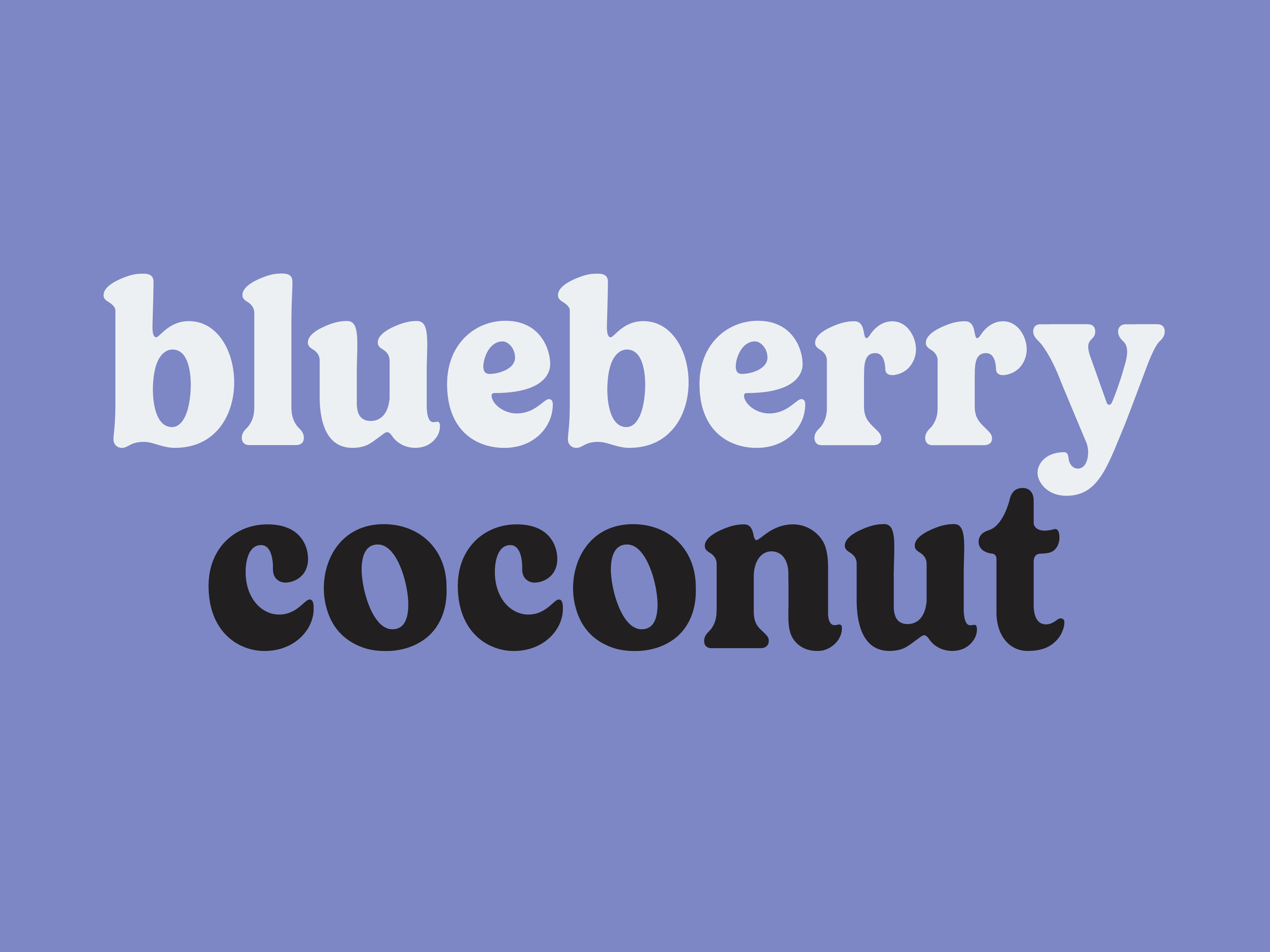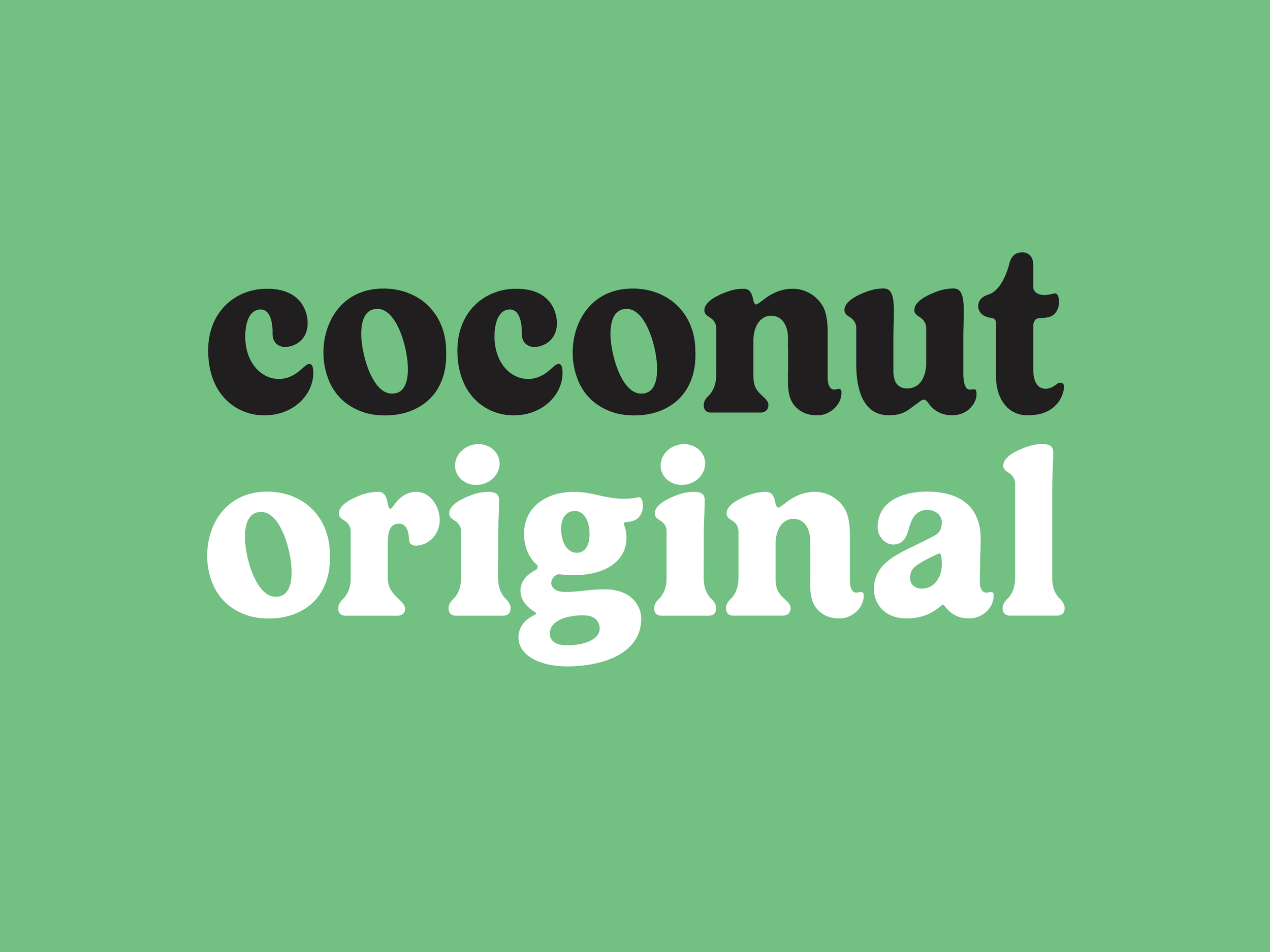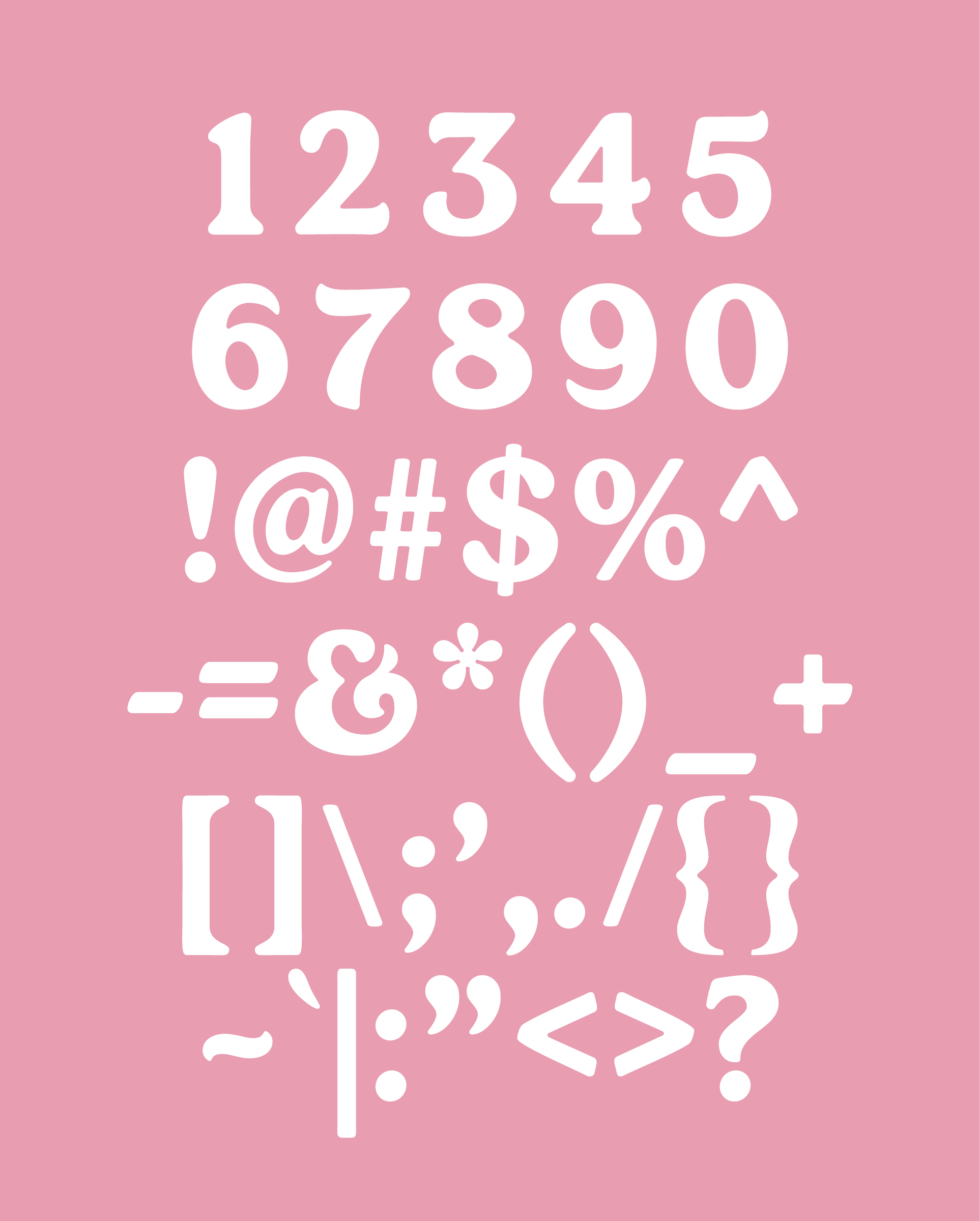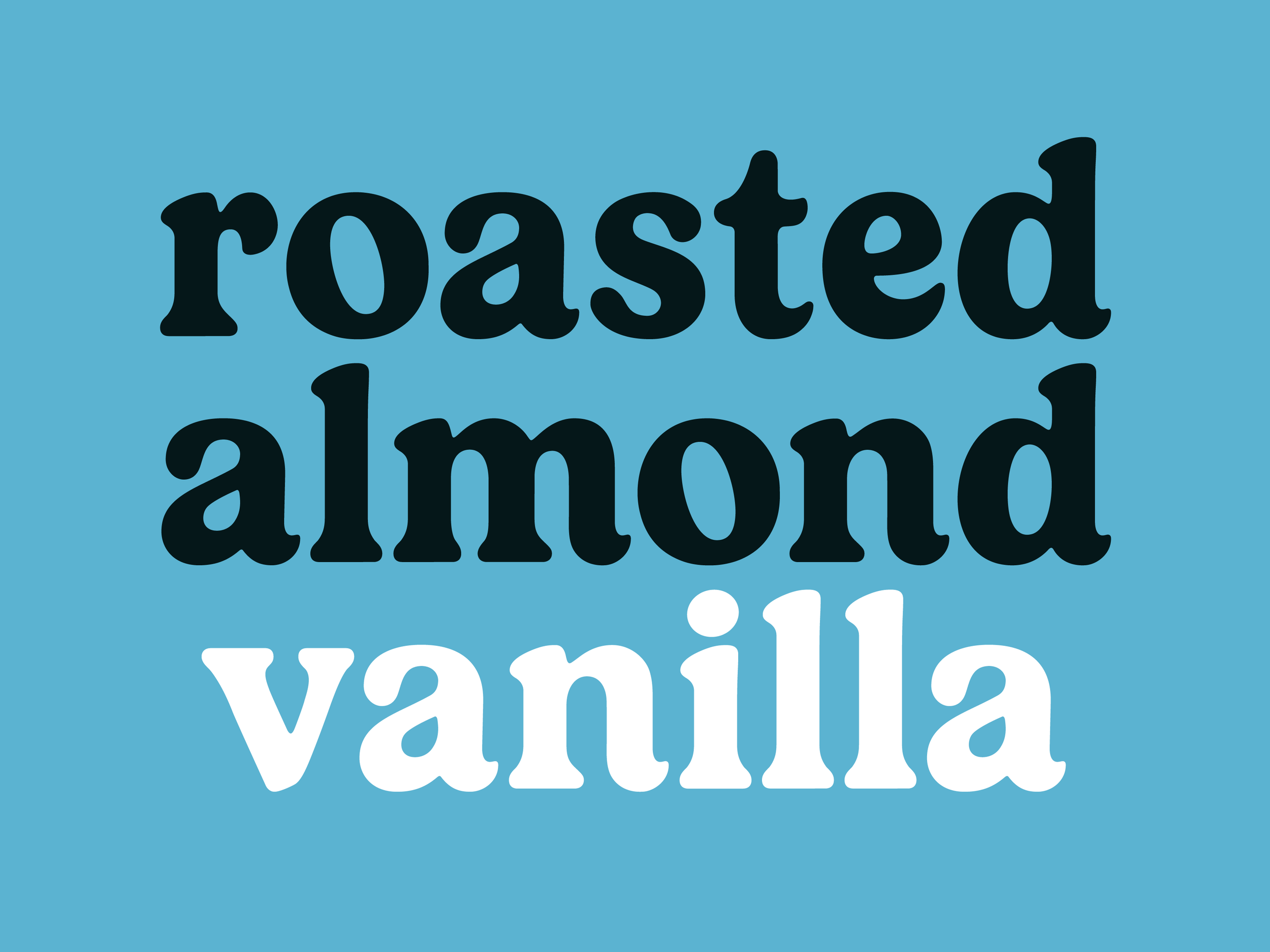
So Delicious Custom Typeface
Client: Danone (So Delicious)
Credits: Principal of Design: Adam Vicarel
Type Design: Carly Salzman
Created in collaboration with Danone in house Design Team.
A custom typeface that’s as creamy and delicious as the products themselves.